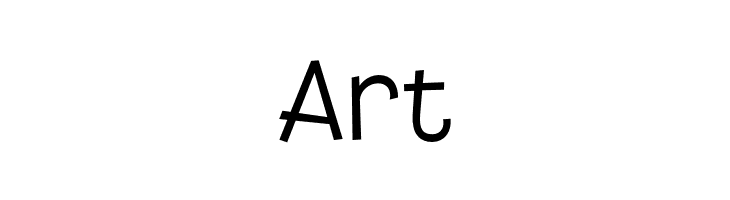
( Fonts by Pizzadude )
A playful, hand-drawn font with bold, rounded characters and a whimsical style.
( Fonts by Vanvipa Chantimabha )
A dotted line font perfect for educational and children's projects.
( Fonts by Brick Pimp )
A playful, brick-inspired font with a bold, three-dimensional appearance.
( Fonts by Lettersweet Studio )
A playful, bold, and bubbly font perfect for children's materials.
( Fonts by Lekearls )
A playful, handwritten-style font with a casual and friendly appearance.
( Fonts by Wildan Type )
A playful, hand-drawn font with bold, rounded characters and a whimsical style.
( Fonts by Namela Type )